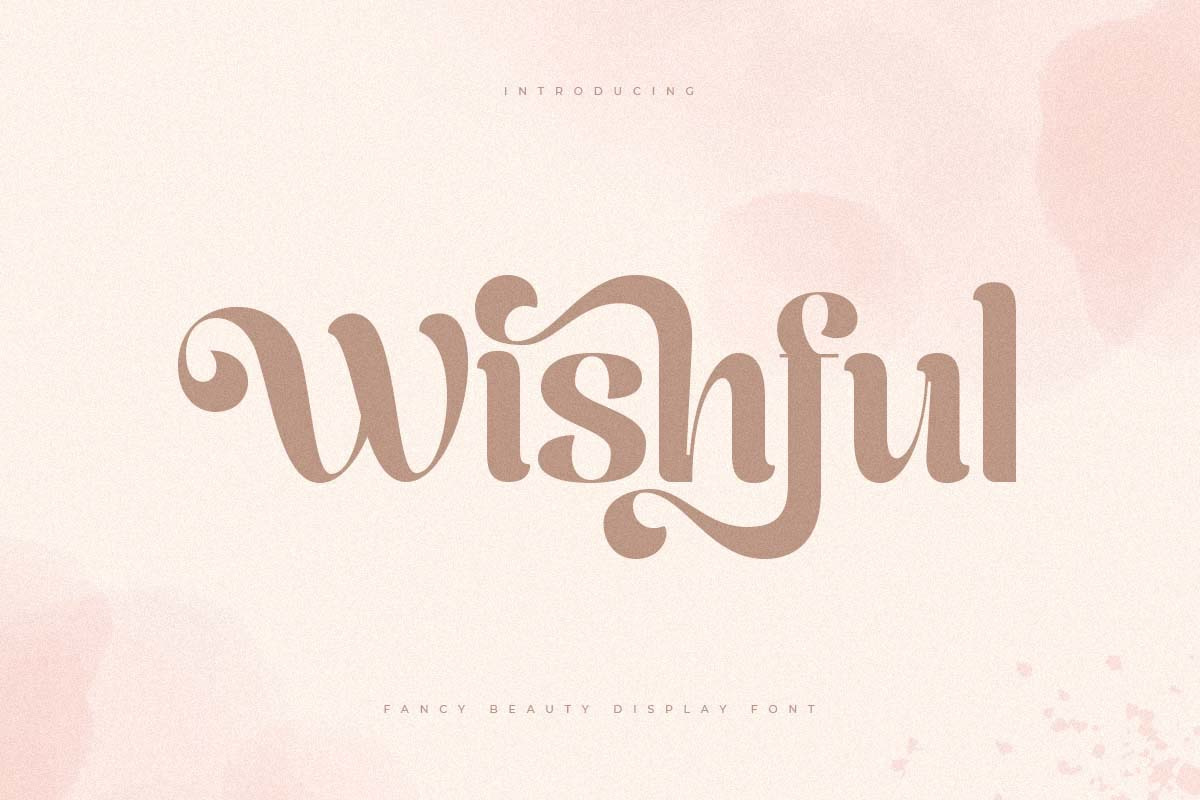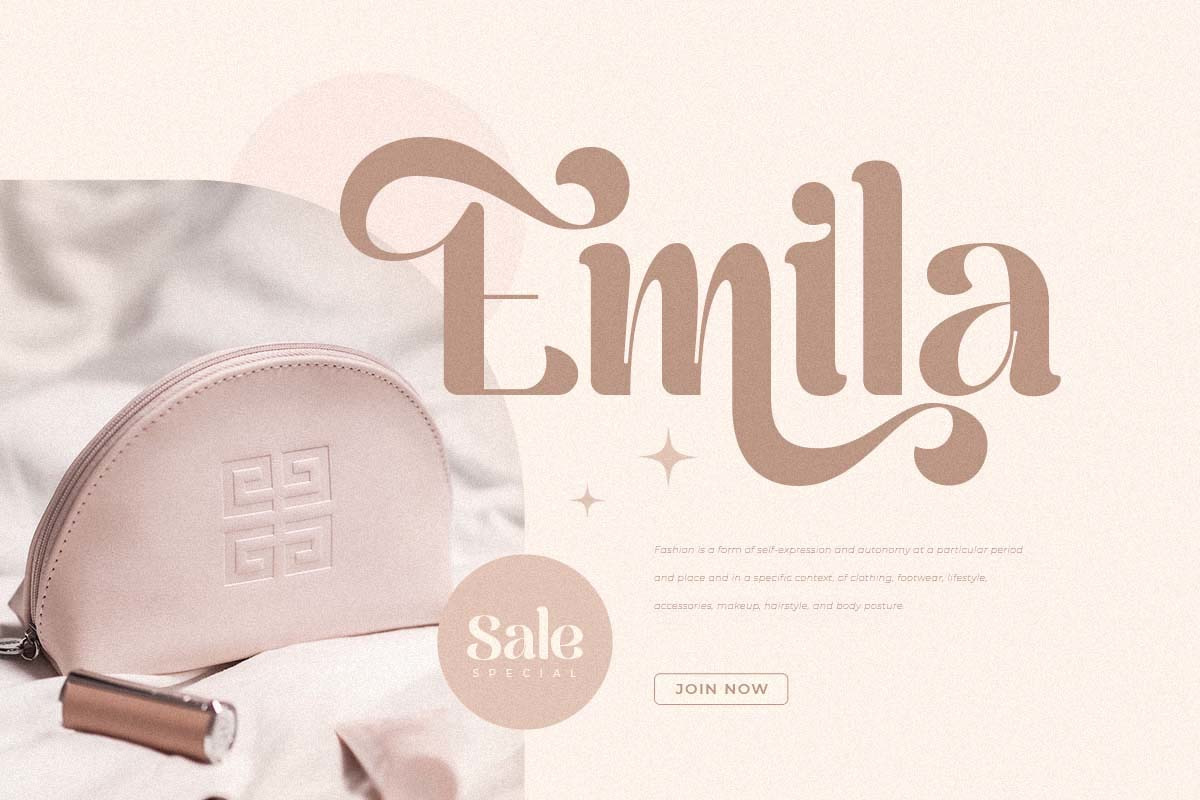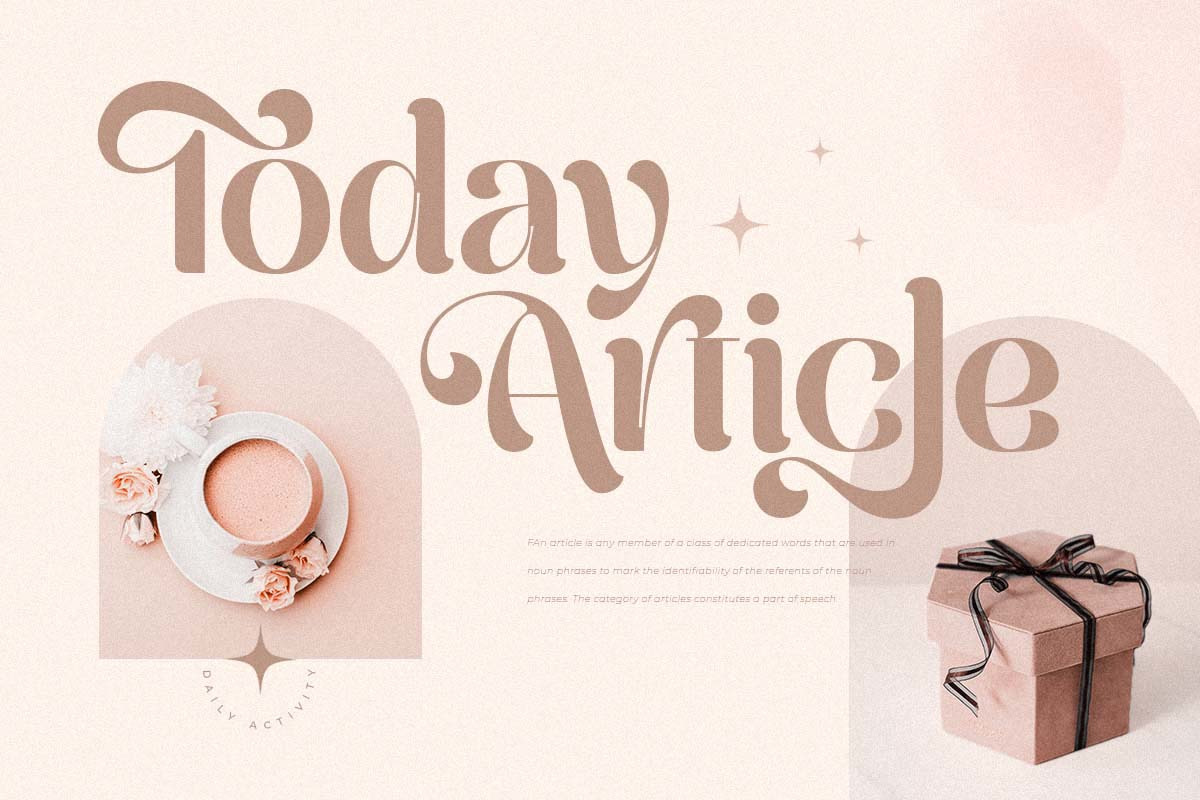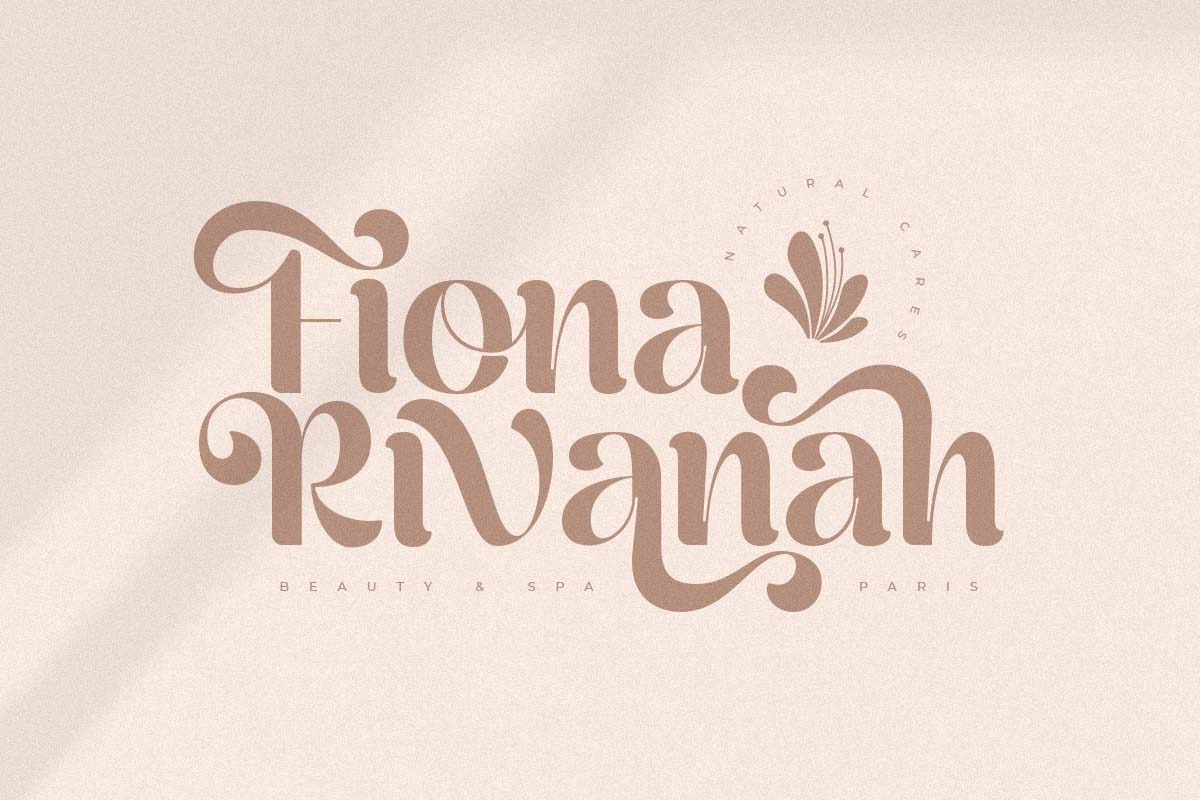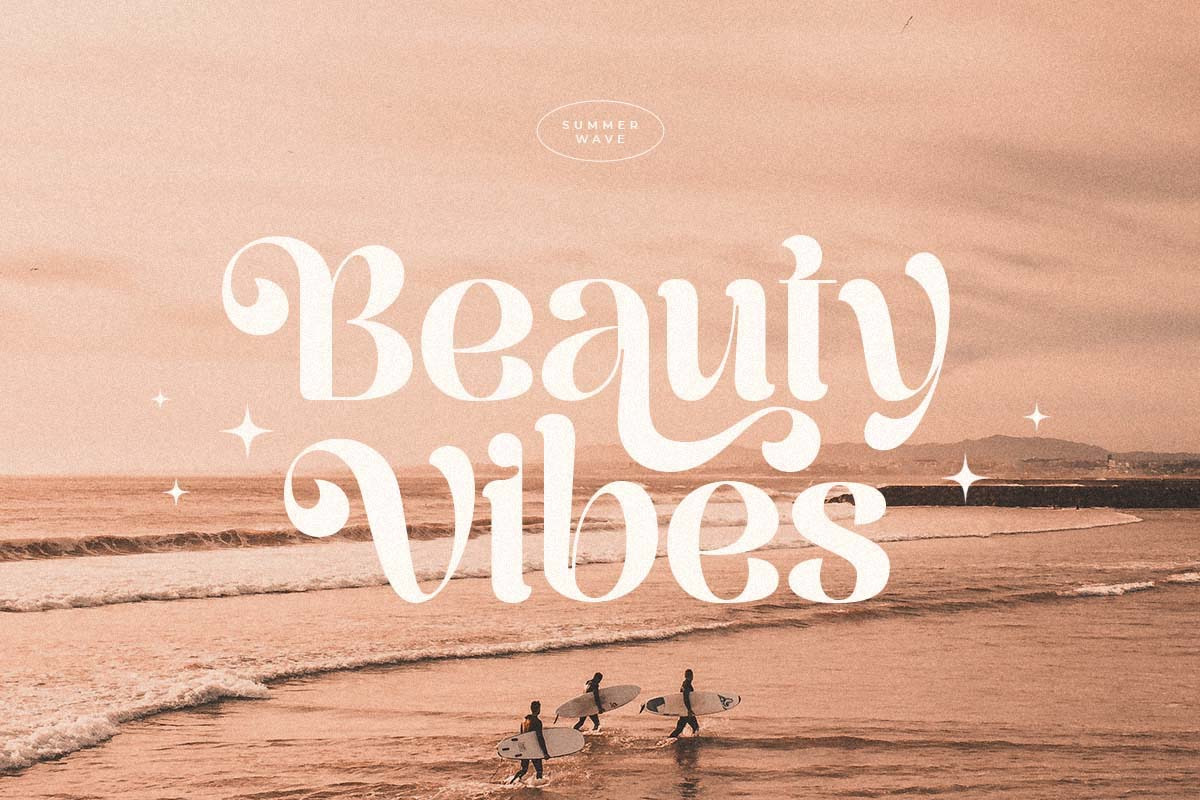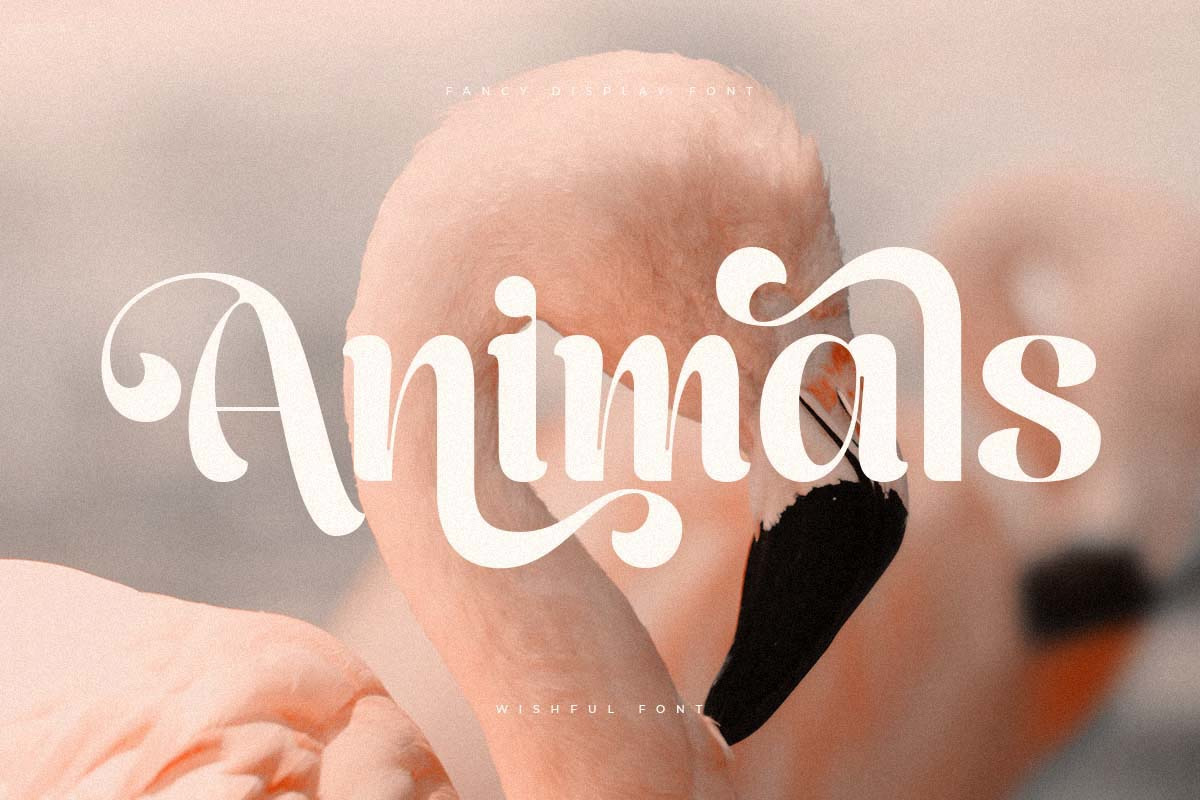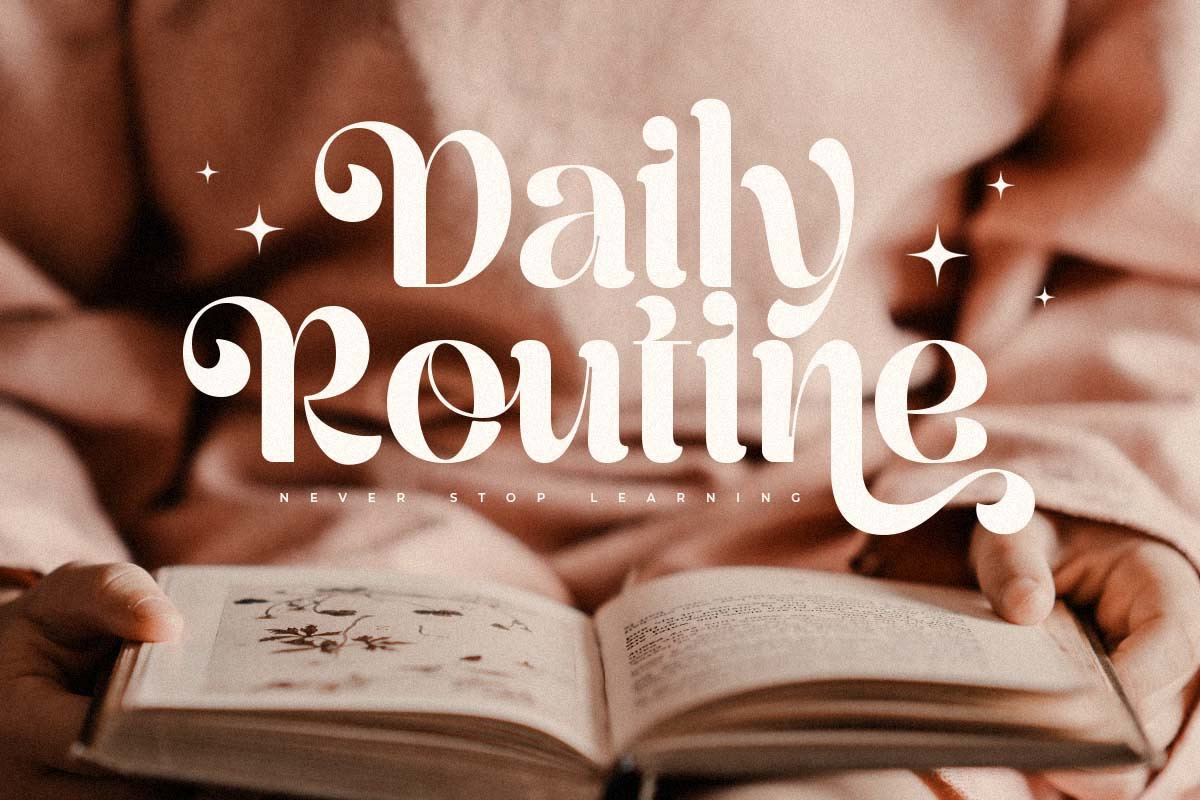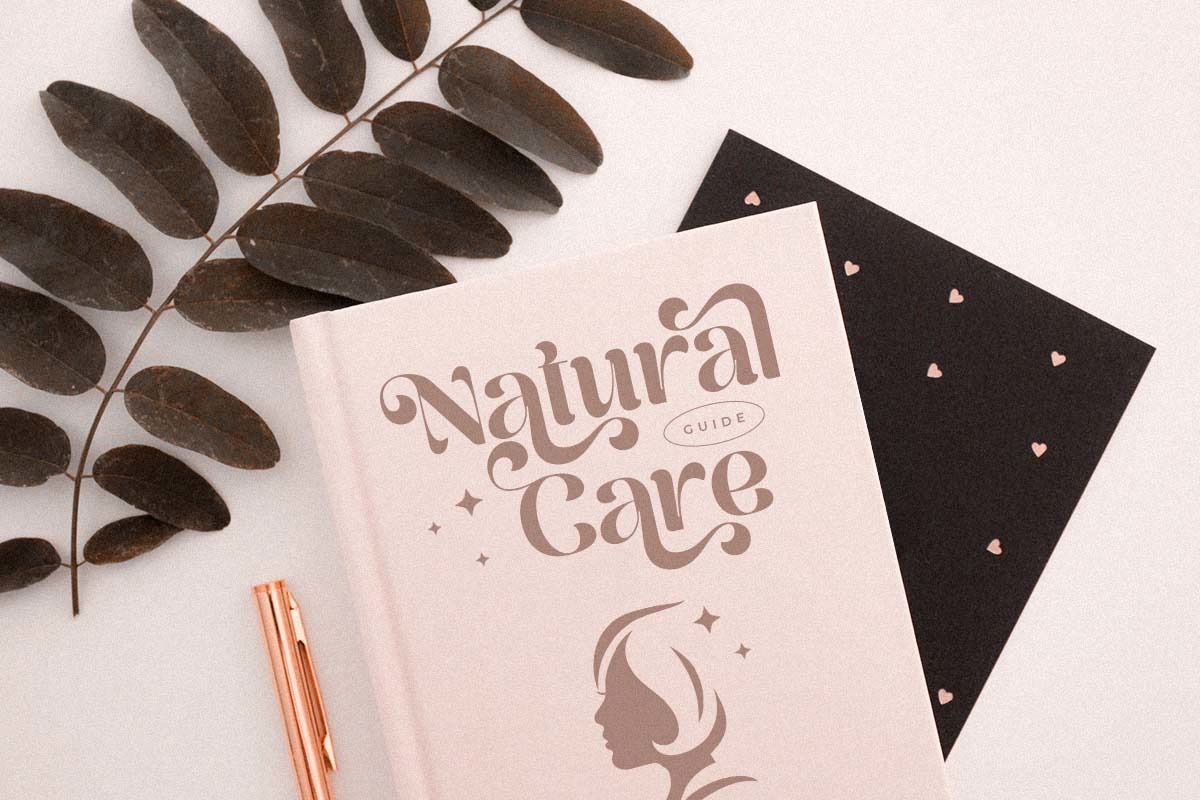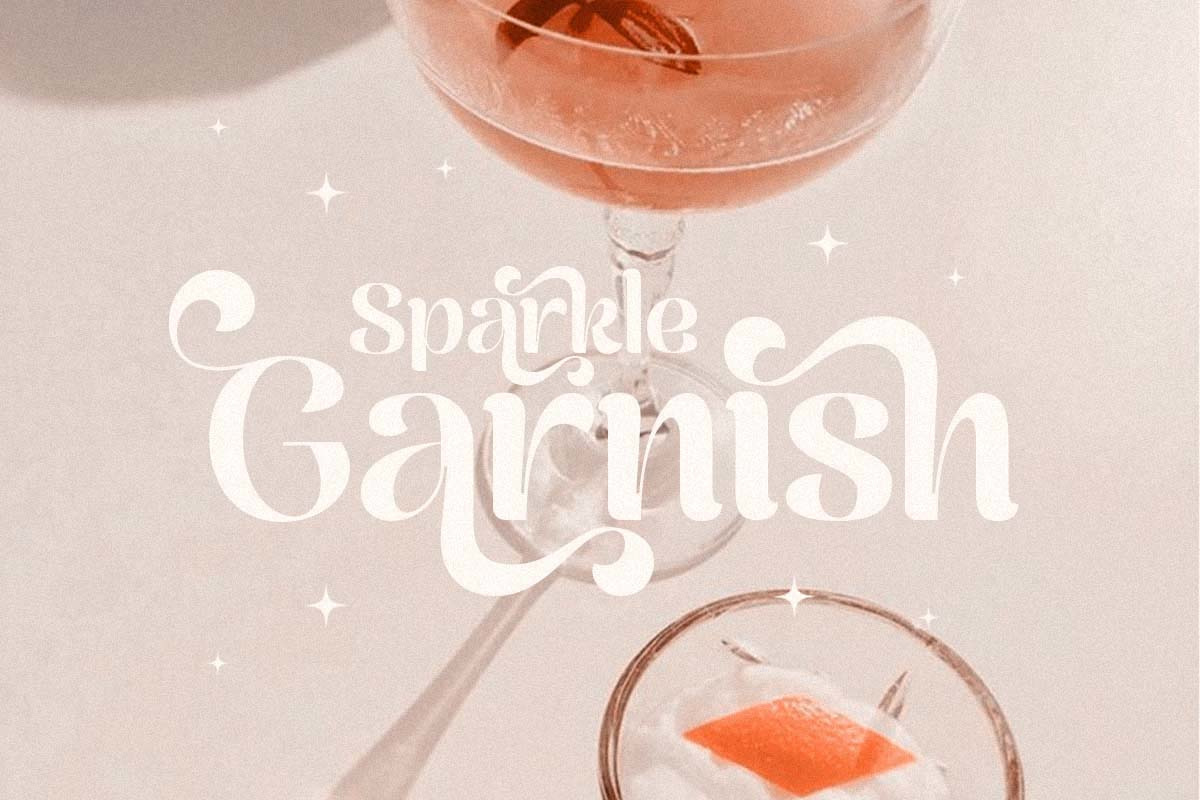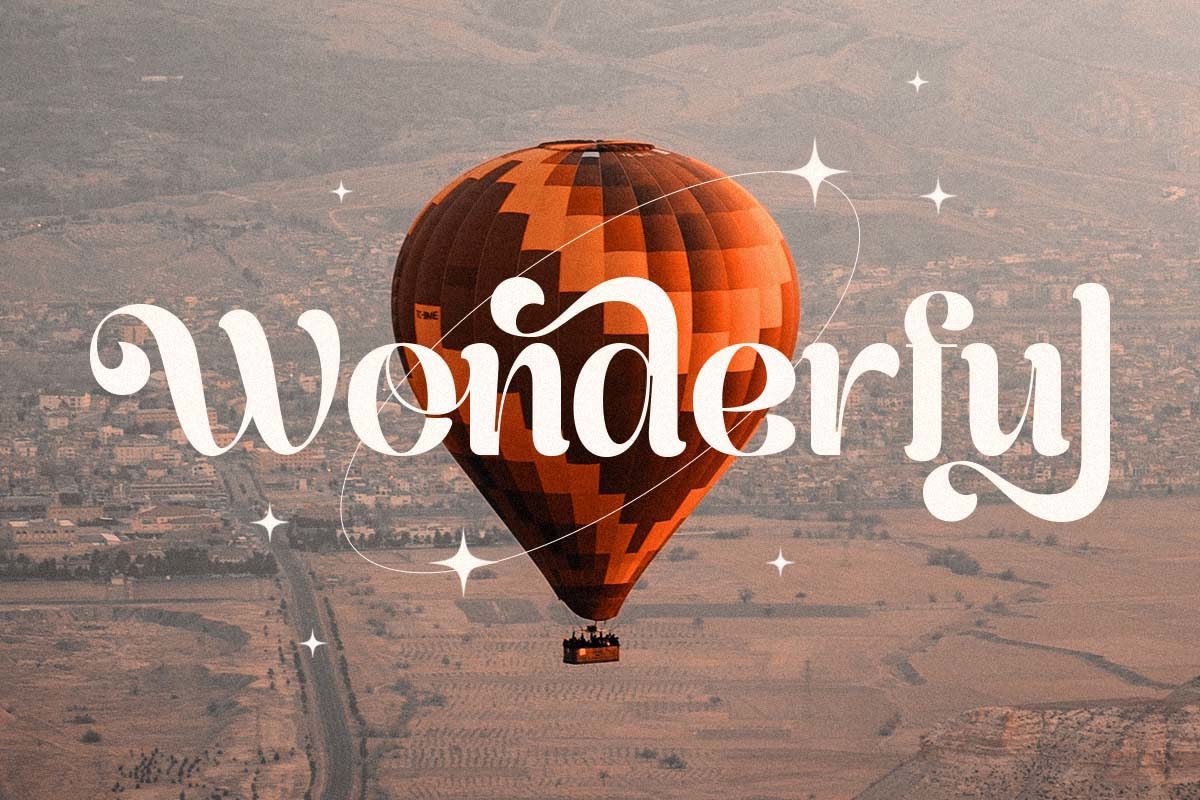
Wishful – Fancy Beauty Display Font
Wishful is a Fancy Beauty Display Font
A new font that we created special for branding needs, with unique characters and awesome alternative characters are ready to add value of your brand. It so nice to leverage designer or product owner that need solutions to make their design look more beauty and modern. And specially for Salute font, We prepared any swash and any alternate characters to help you create unlimited variations for your creative needs.
Wishful is a Fancy BEauty Display Font ready with:
- Any options to get creative variations (combination of Alternate and Ligature)
- Preview as a inspirations that you can do with Wishful font
- Ready with Lowercase and Uppercase characters